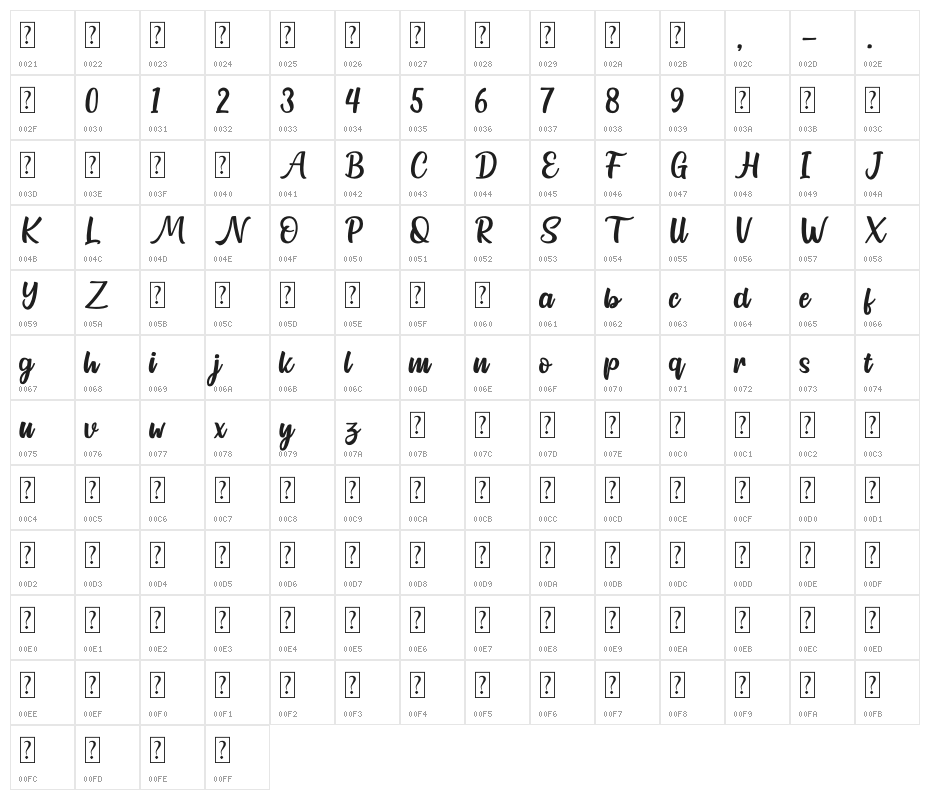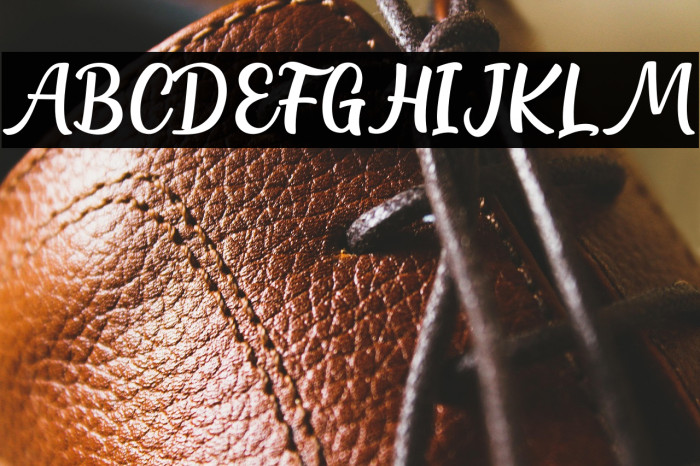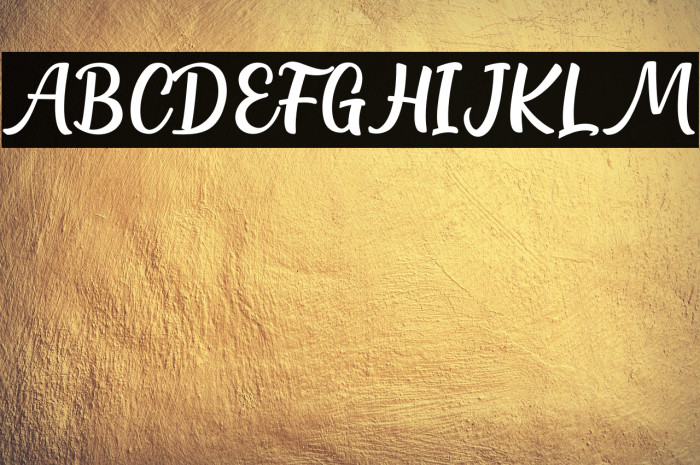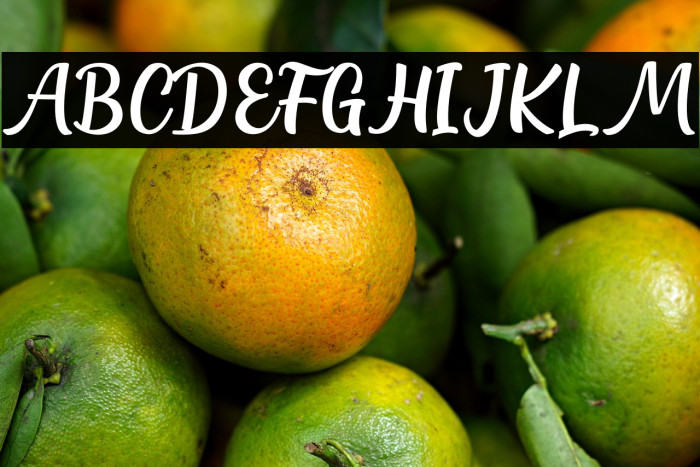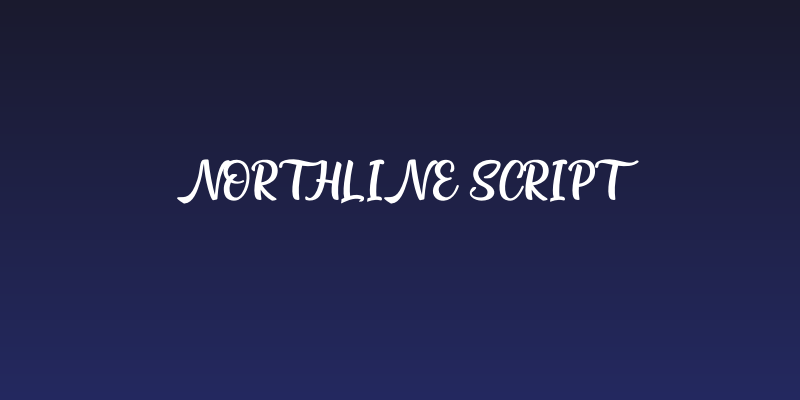
Northline Script Font
Northline Script Description
This font features a flowing, cursive style with smooth, connected strokes that give it an elegant and sophisticated appearance. The uppercase letters are bold and slightly slanted, while the lowercase letters maintain a consistent flow with rounded edges and a playful bounce. The numerals are clear and legible, matching the overall script style. The font exudes a sense of warmth and friendliness, making it ideal for creative and expressive projects. Its design is reminiscent of traditional calligraphy, yet it maintains a modern touch with its clean lines and balanced proportions.
| Use Case | Logos, Invitations, Branding |
| Proposed Projects | Ideal for wedding invitations, greeting cards, branding, and logo design. |